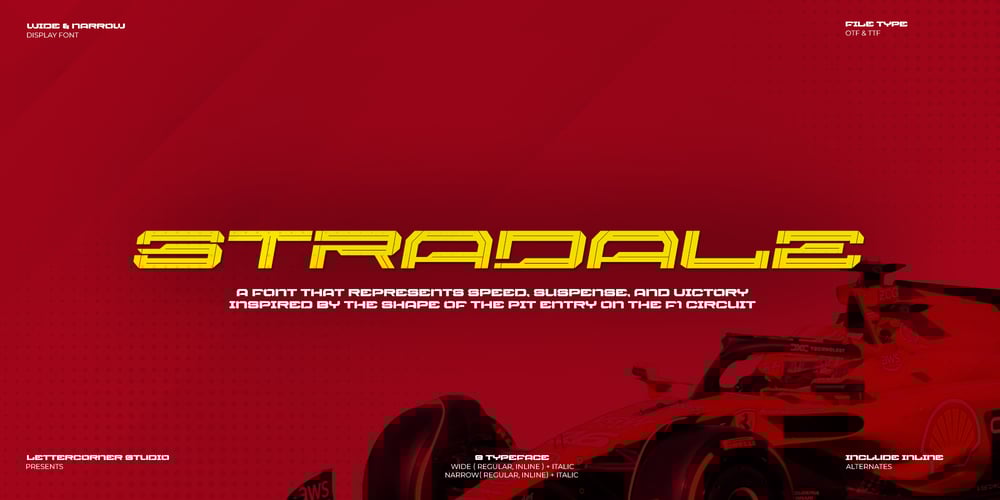
Stradale Font Family was designed by Muhammad Afif Ersya and published by Mevstory Studio. Stradale contains 8 styles and family package options. Stradale is an Italian term that means “road” or “street.” In the context of automobiles, especially in the world of sports and racing cars, “stradale” is typically used to describe a racing car version that has been adapted for road use.The Stradale font itself represents the characteristics of a High-Performance car, Aerodynamic Design, Comfort, and Road Legality.Stradale was inspired when I watched F1 and saw the Pit Entry and Pit Exit from the EMILIA-ROMAGNA circuit.Stradale is perfect for logos & branding, photography, invitations, watermarks, advertisements, product designs, stationery, wedding designs, labels, product packaging, special events or anything that requires handwritten content.